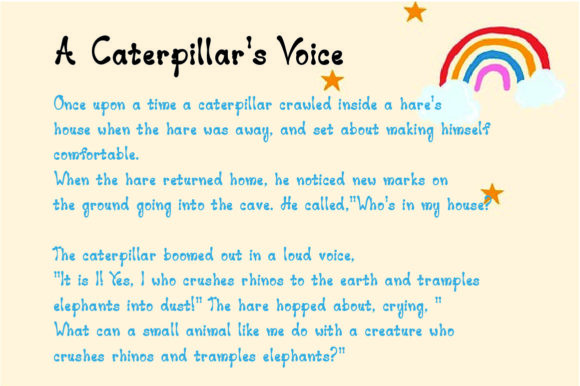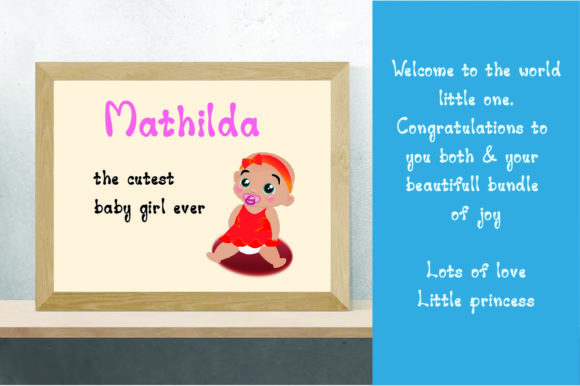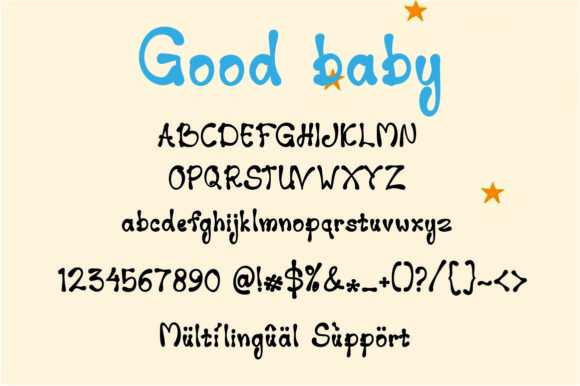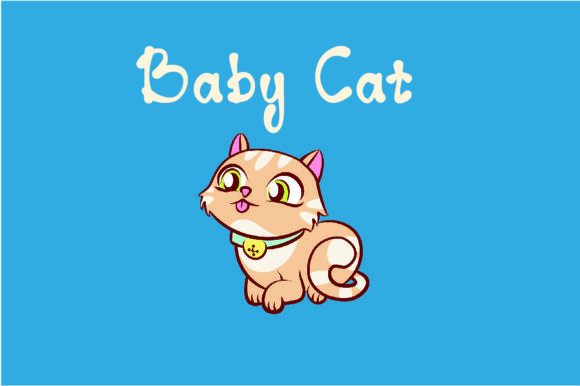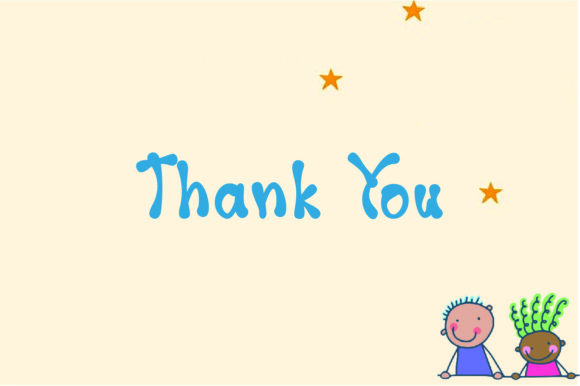
Introduction to Good Baby Font
Who hasn’t been there – staring at a blank canvas, trying to find the perfect font to bring a creative project to life? The search for that elusive design resource can be a daunting task, especially when you’re working on a project with a specific, laid-back vibe. This is where the Good Baby Font comes in – a simple, quirky, and adaptable handwritten font that’s about to become your new best friend.
With its informal style and casual charm, the Good Baby Font is the perfect choice for designers looking to add a relaxed touch to their work. Whether you’re working on a social media graphic, a flyer, or a digital illustration, this font is sure to bring a high-quality, creative touch to your project. And the best part? It’s available for free download, making it an invaluable resource for designers on a budget.
Key Features of Good Baby Font
- Unique, Hand-Drawn Design: The Good Baby Font features a distinctive, hand-drawn design that adds a personal touch to any creative project.
- Transparent Background: The Good Baby Font has a transparent background, allowing for easy layering and customization in various design applications.
- High Resolution: The font is designed at a high resolution, ensuring crisp and clear typography in both print and digital applications.
- Perfect for Creative Projects: The Good Baby Font is ideal for use in creative projects, such as children’s book illustrations, nursery decorations, and other design applications where a playful, hand-drawn feel is desired.
- Large Character Set: The font includes a large character set, including uppercase and lowercase letters, numbers, and punctuation marks, making it a versatile design resource.
Honest Review: Good Baby Font
I recently came across the Good Baby Font, and I have to say, it’s been a game-changer for my design projects. This font is perfect for those creative projects that require a unique and playful touch.
- ✨ High quality and versatile font
However, there are a few limitations to consider. The font doesn’t have a transparent background, which can make it a bit tricky to use in certain design situations. Additionally, the font is not as extensive as some other options on the market, with only a limited range of characters and styles available.
- ⚠️ No transparent background
- ⚠️ Limited range of characters and styles
Overall, I’m really impressed with the Good Baby Font. While it may not be perfect, it’s a great addition to any design resource collection. I’d definitely recommend giving it a try for your next creative project.
Introduction to Good Baby Font
The Good Baby Font is a high-quality design resource that can add a personal touch to any creative project. With its transparent background, this font is perfect for adding text overlays to your designs.
Tips for Getting the Most Out of Good Baby Font
Common Use Cases for Good Baby Font
The Good Baby Font is perfect for a variety of creative projects, including social media graphics, blog posts, and marketing materials. You can also use it to add a personal touch to your wedding invitations, baby shower invitations, or other special occasion invitations.